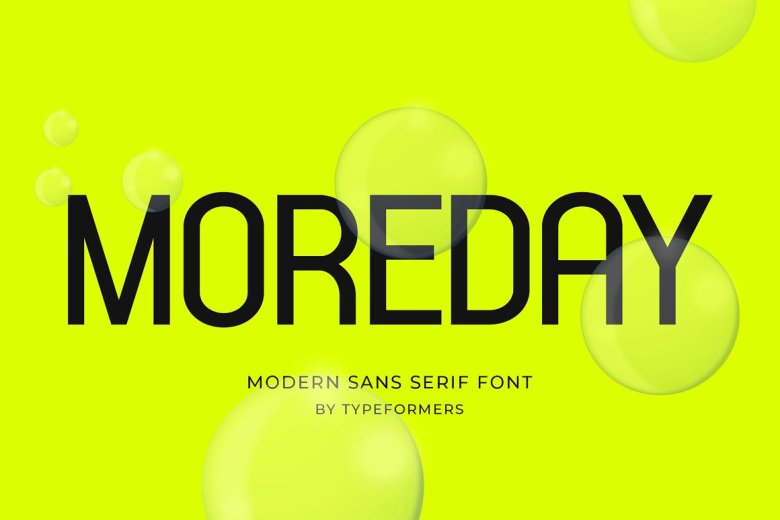
Moreday Font
Moreday Font – Modern Sans Serif. Moreday is an elegant and modern font suitable for magazine covers, headings, logos and branding purposes.
Moreday Modern Sans Serif Font